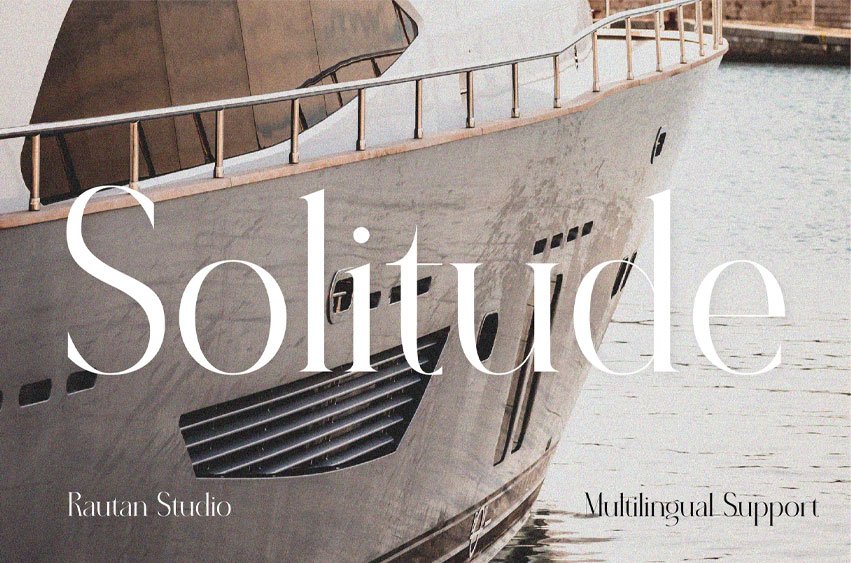
Solitude Font
Solitude Font is a refined editorial serif designed for designers seeking a calm, confident typographic voice, combining high contrast strokes, soft flowing curves, and delicate terminals. Its vibe feels elegant, composed, and thoughtful, making it a natural fit for fashion editorials, magazines, book covers, branding systems, and refined packaging. Built with a classic serif foundation and modern proportions, SOLITUDE communicates clarity and trust without visual noise.
SOLITUDE is created for moments when typography needs to speak quietly yet clearly. Perfect for editorial layouts, branding identities, posters, magazines, and sophisticated digital presentations, this typeface supports storytelling with restraint and balance. Its controlled contrast and graceful structure help designers evoke calm, credibility, and refinement—ideal for projects that value tone, atmosphere, and readability.
Key Features : Refined Editorial Character
• High contrast strokes with smooth serif transitions
• Soft curves that create a composed, timeless rhythm
Built for Thoughtful Design
• Ideal for editorial spreads, book covers, branding, and packaging
• Maintains clarity across print and digital applications
Multilingual Ready
• Supports 67 languages, suitable for international publications
Balanced & Readable
• Carefully tuned proportions for headlines and text
• Works beautifully at display sizes and longer passages